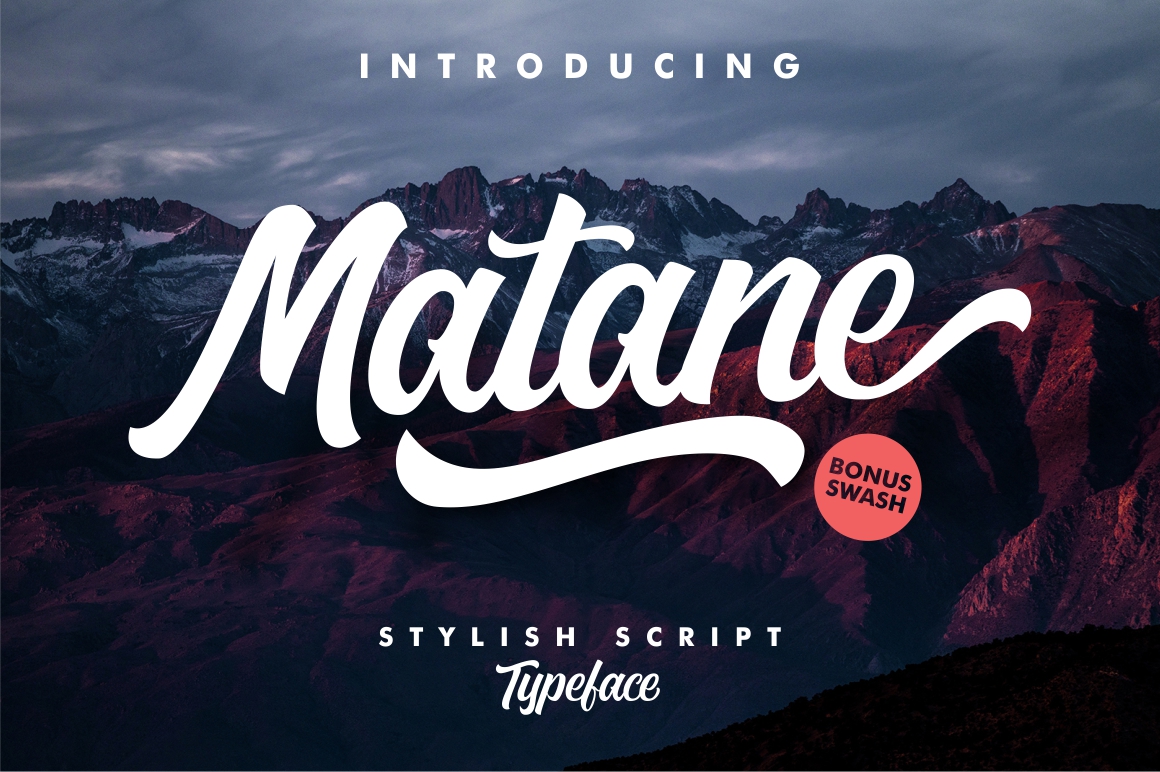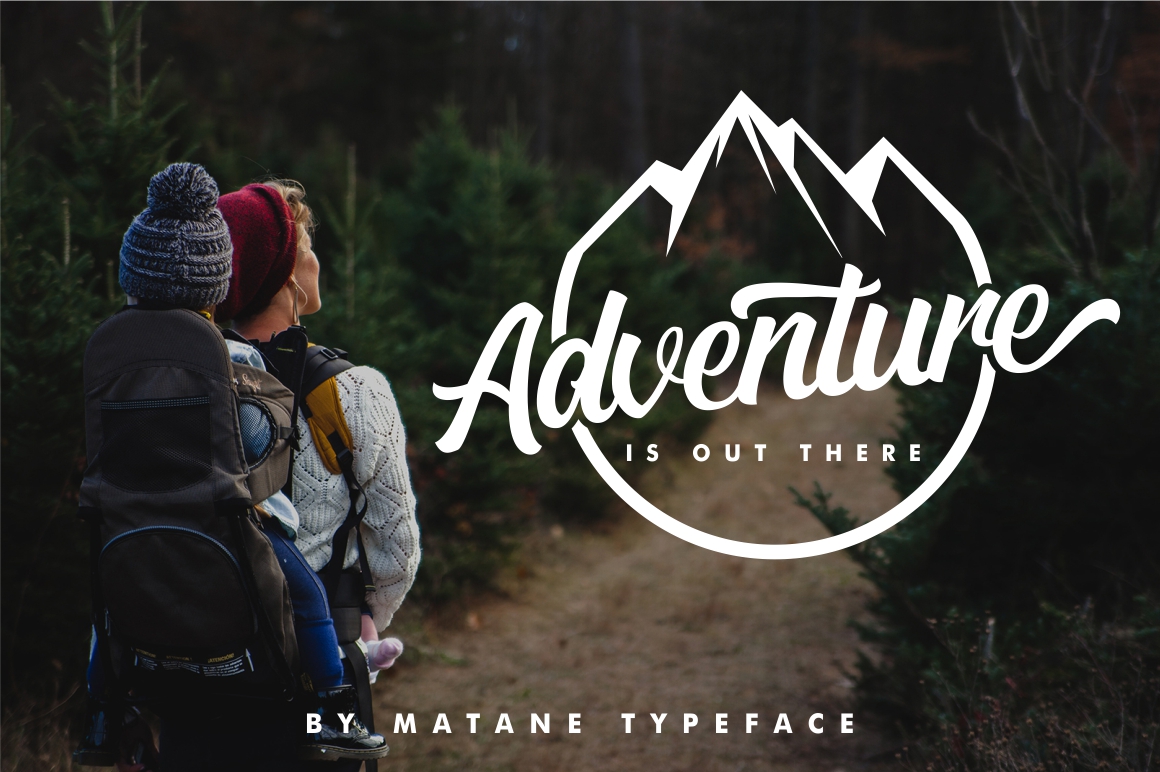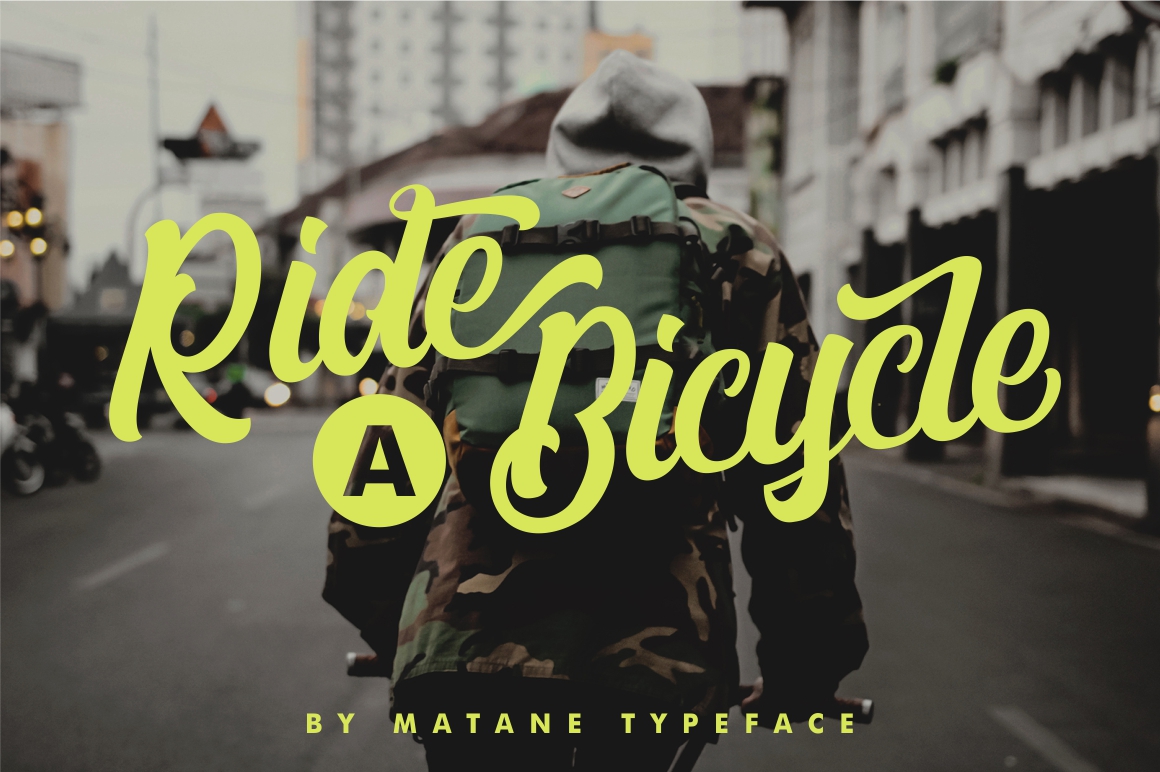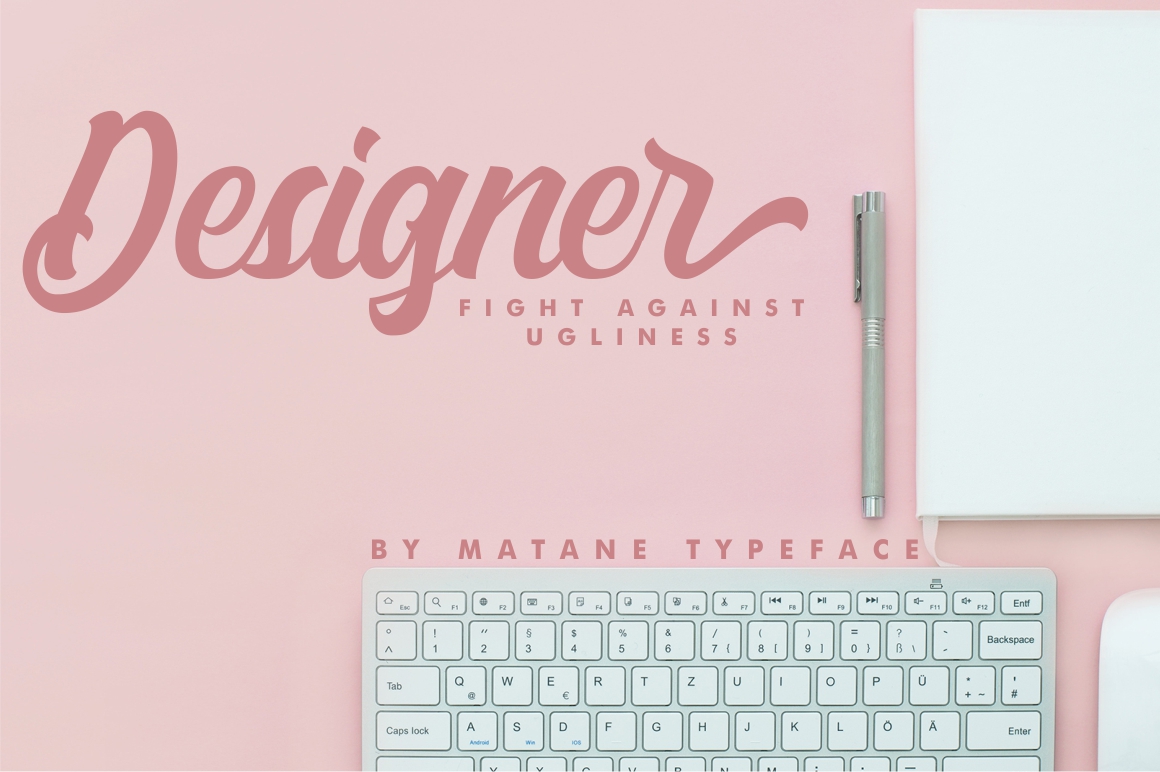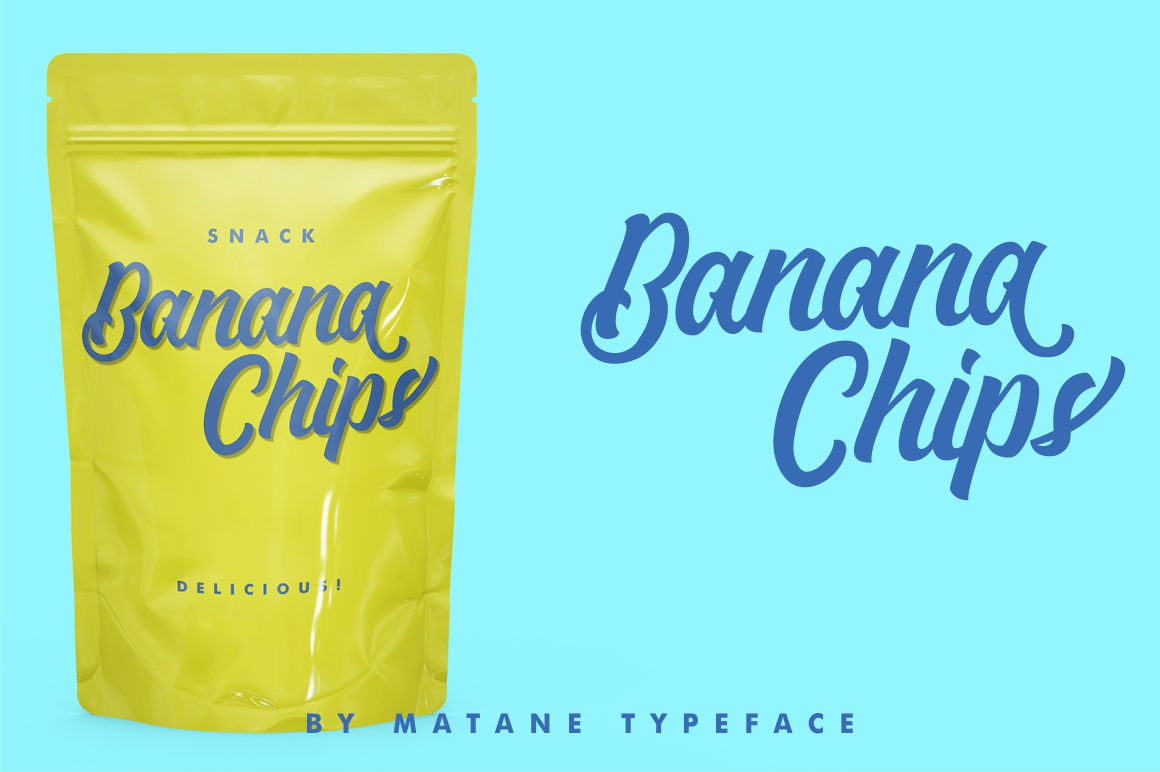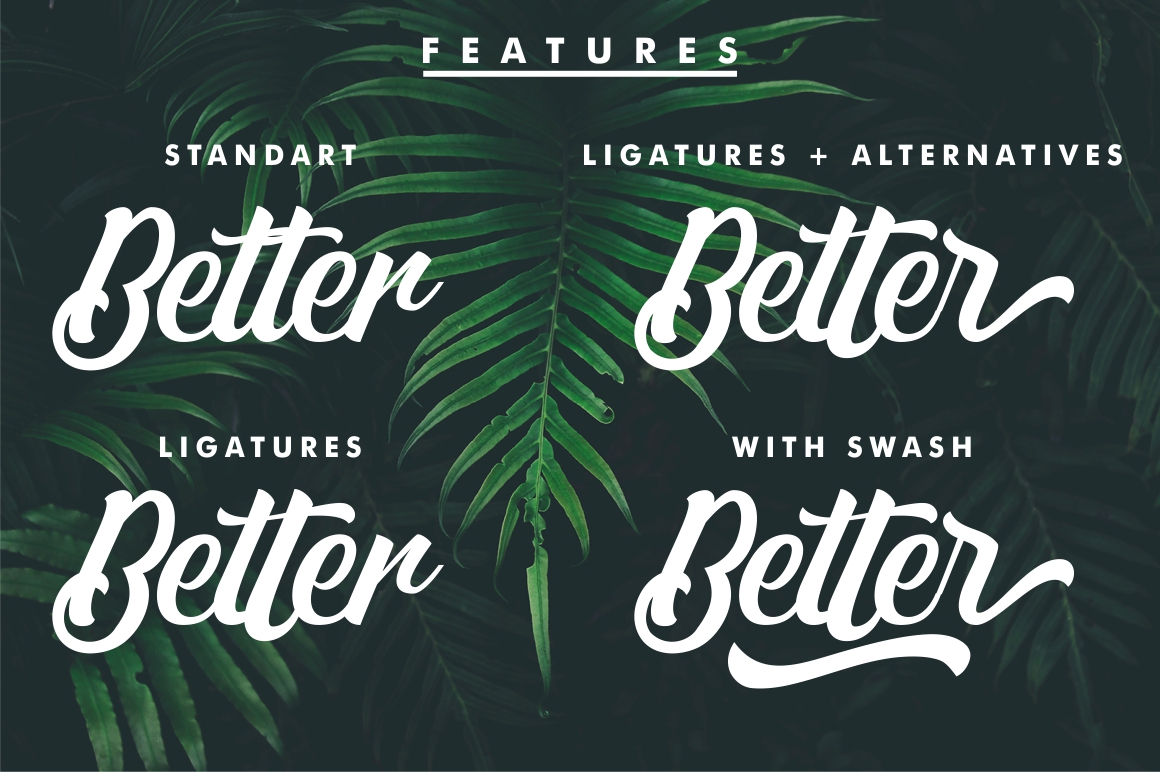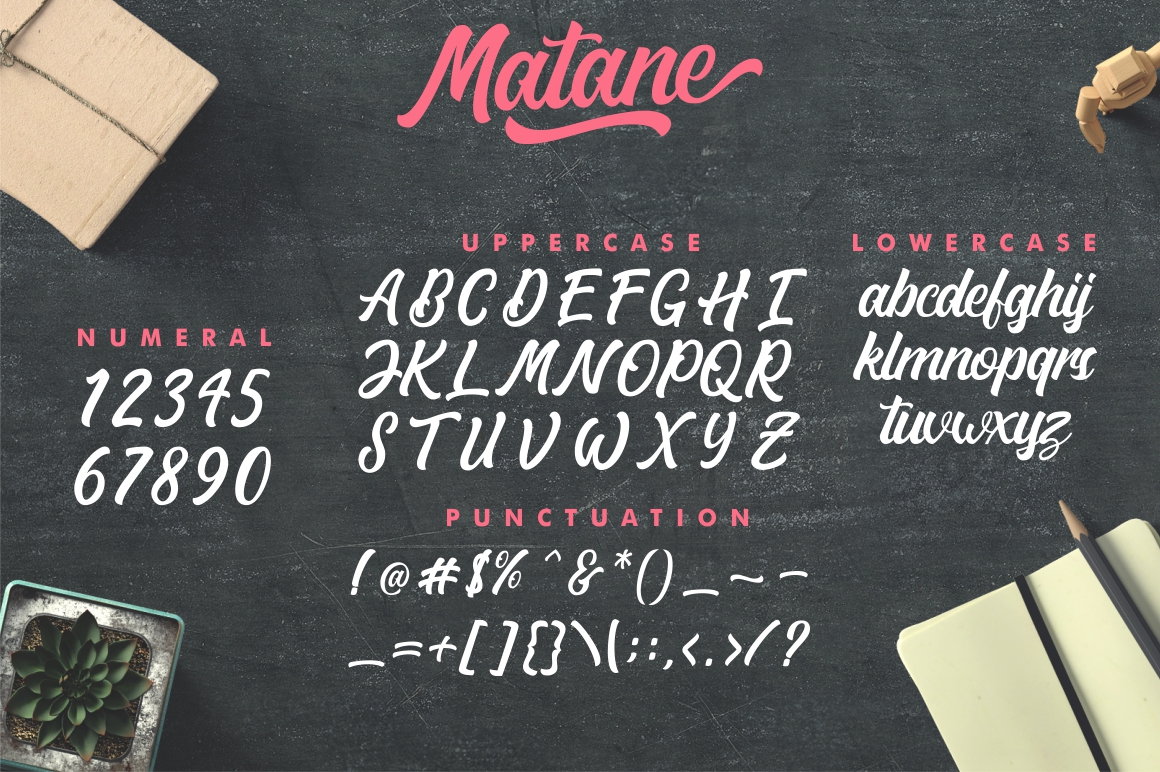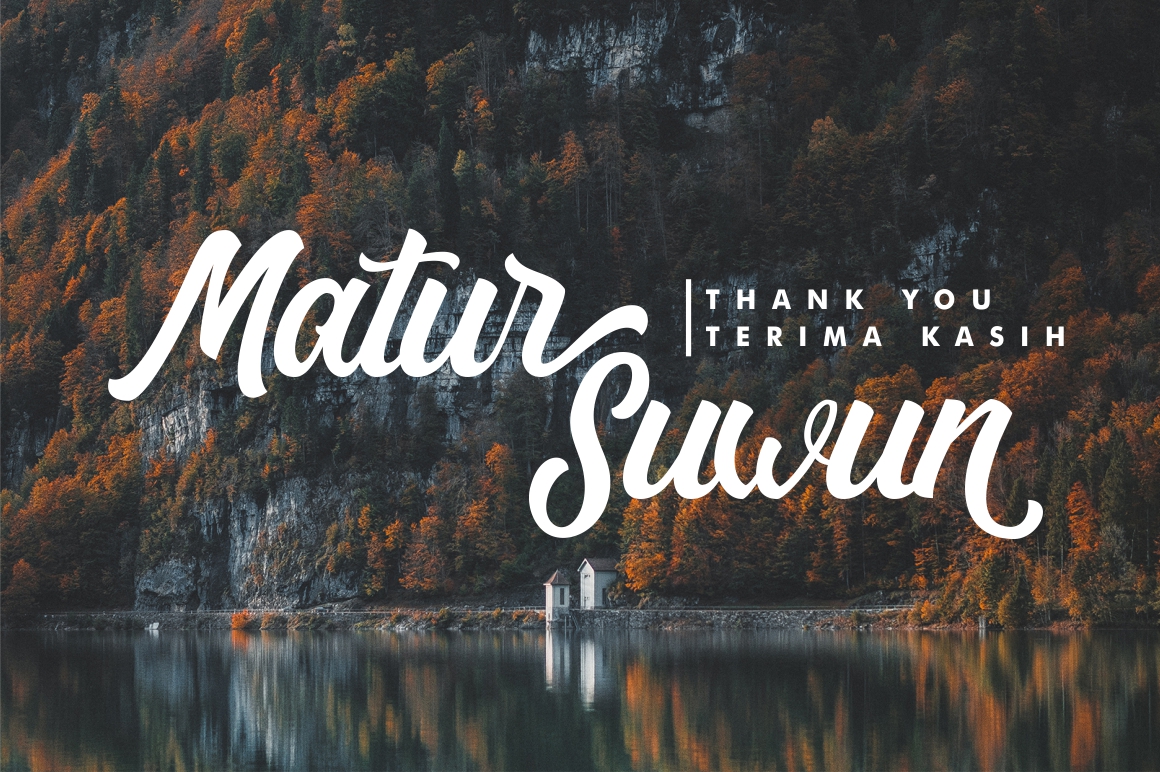
Matane Font
About Matane Font
Matane is a brand new beautiful typeface, crafted to have a dynamic and stylish appeal. This font is a great way to give your designs a hand painted look that never goes out of style.